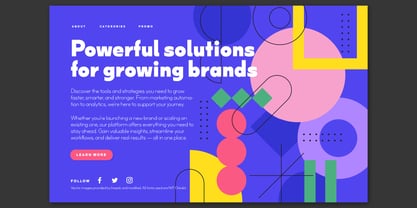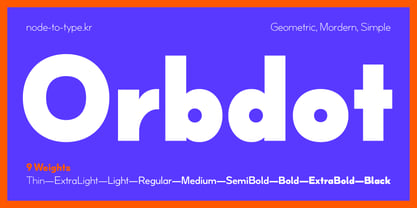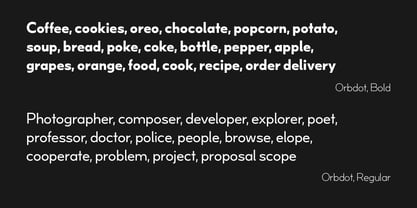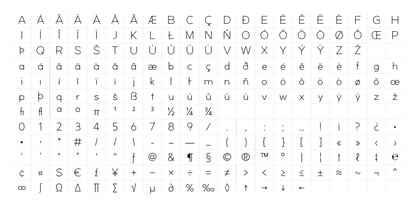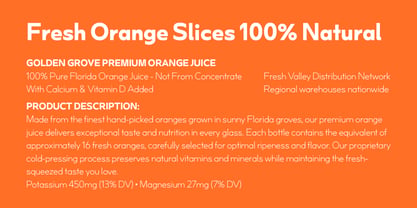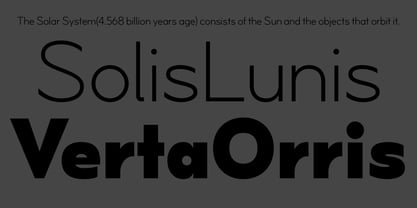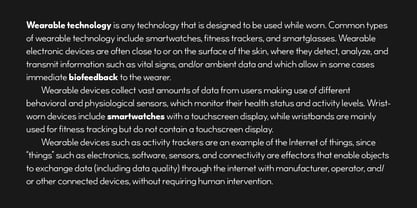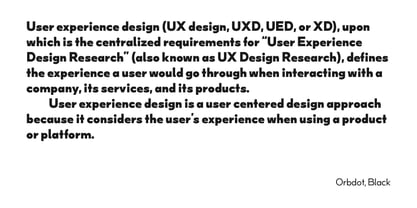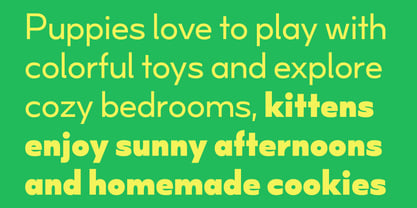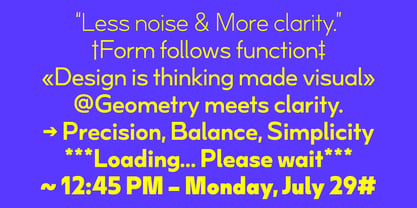
NtT Orbdot
by Node to Type
The NtT Orbdot Font Family was designed by Hansol Park and published by Node to Type. NtT Orbdot contains 9 styles and family package options. More about this family
NtT Orbdot is a versatile geometric sans-serif that unites modern minimalism with warm, rounded forms. Its clean structure creates an inviting visual rhythm—perfect for contemporary branding and digital design (UX/UI, web, and more).
With a low x-height and wide open counters, NtT Orbdot achieves balanced elegance while maintaining exceptional legibility. The low x-height creates distinctive near-circular letterforms that bring personality and character to your work, establishing a unique visual rhythm.
Designed in nine harmonious weights from ExtraLight to Black, it offers broad typographic flexibility across UI, editorial, and branding contexts. NtT Orbdot is ideal where clean, minimal aesthetics must coexist with approachability and readability.
Key Features:
• A clean, minimalist design language
• Geometric harmony with soft, rounded glyphs
• A refined visual rhythm that feels modern and approachable
• High legibility across sizes and weights
• Seamless typographic consistency across UI, editorial, and branding contexts
• Distinctive near-circular letterforms through low x-height that add unique character and personality